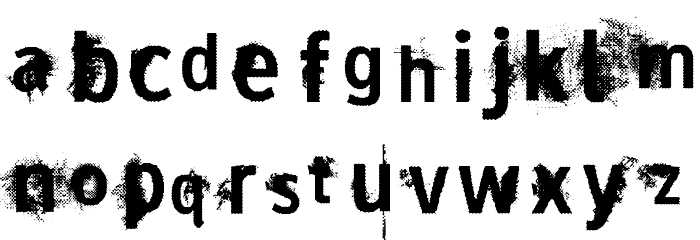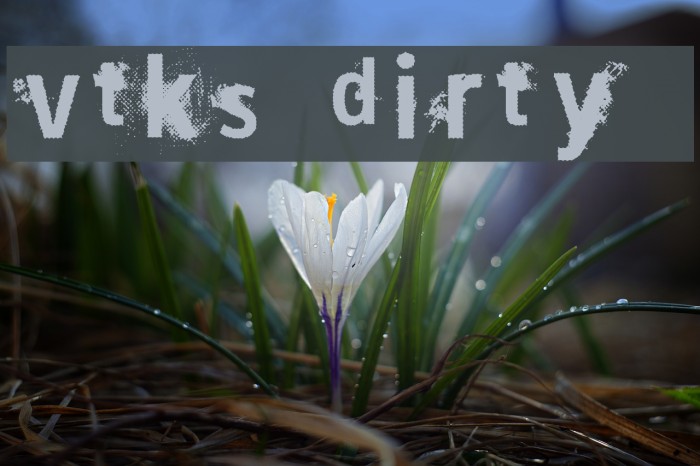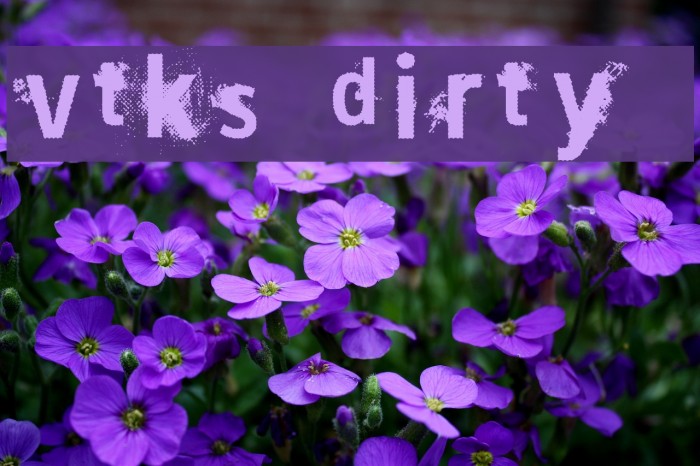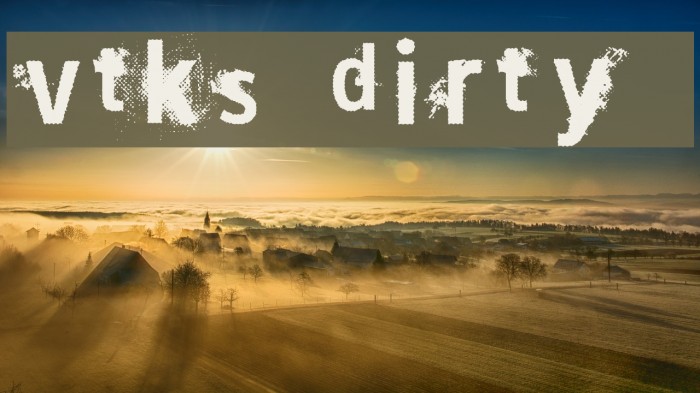
vtks dirty 2 Font
This font features a distressed and grungy aesthetic, characterized by rough edges and a textured appearance that mimics the look of worn or eroded surfaces. The letters have a bold presence with varying levels of opacity and irregularities, giving them a unique, handcrafted feel. The uppercase and lowercase letters maintain a consistent style, with some characters appearing more fragmented than others. This font's distinctive style makes it ideal for projects that require a raw, edgy look, such as music album covers, posters, or urban-themed designs.
A distressed, grungy font with a textured, worn appearance.
- Proposed Projects: Ideal for music album covers, posters, urban-themed designs, and any project needing a raw, edgy aesthetic.
- Overall Style: Grunge, Distressed